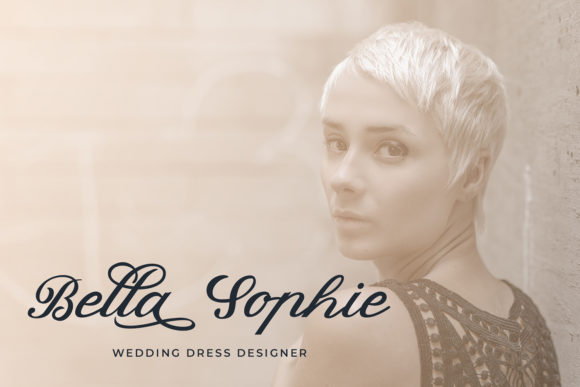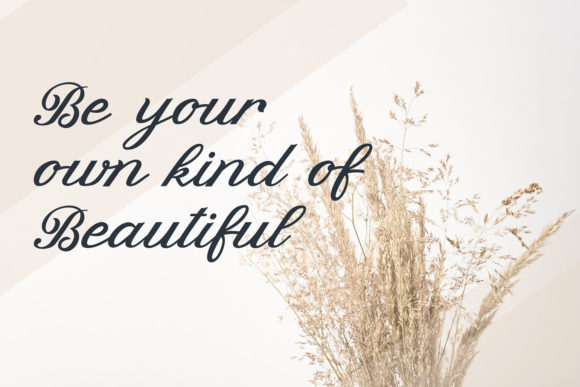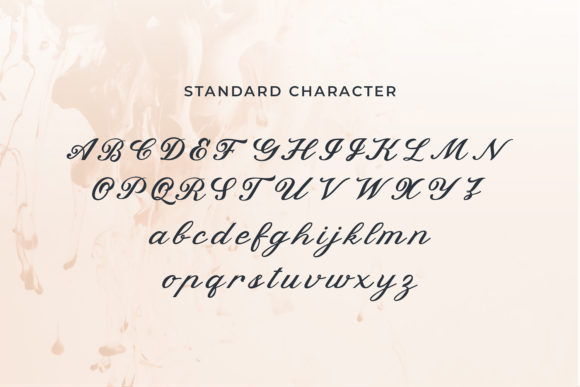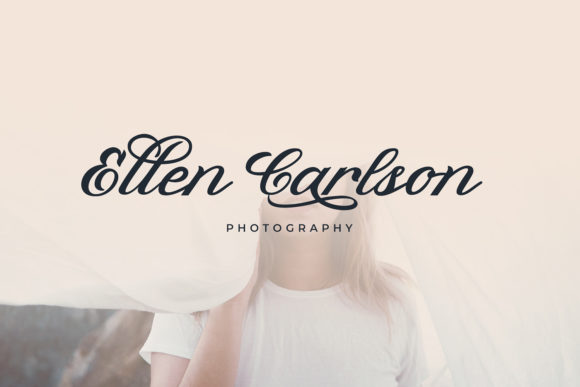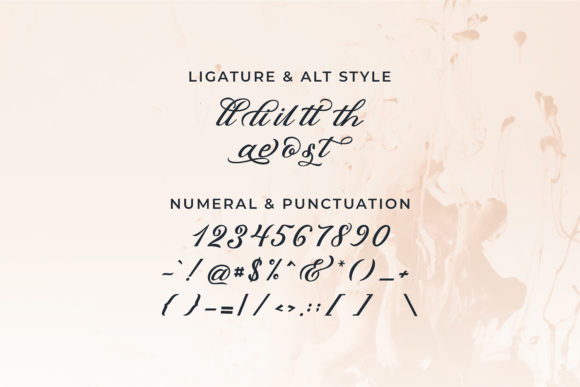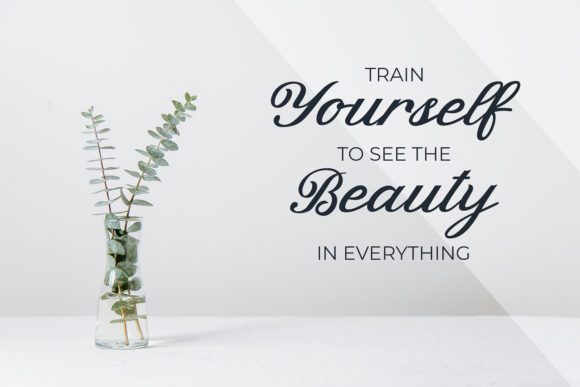
The Fattoll Font: A Vintage Script to Sweep You Off Your Feet
I still remember the design project that led me to discover the Fattoll font. I was working on a romantic getaway brochure, and my client wanted a font that would transport their audience to a bygone era. I scoured the internet, tried out countless fonts, but nothing seemed quite right. That was until I stumbled upon Fattoll – a strong lettered script font with a vintage flair that instantly captured the essence of what I was looking for.
What I Love About Fattoll ✨
- ✅ Romantic and elegant: Fattoll adds a touch of sophistication and whimsy to any project, making it perfect for wedding invitations, greeting cards, and more.
- ✅ Versatile: This font is incredibly versatile and can be used for a wide range of applications, from headlines to body text.
- ✅ Easy to read: Despite its ornate nature, Fattoll is surprisingly legible, even at smaller font sizes.
- ✅ Unique character set: Fattoll boasts a wide range of glyphs and stylistic alternates, allowing you to add personality to your text.
- ⚠️ Some letters may require manual kerning: As with any script font, you may need to adjust the kerning between certain letters to achieve optimal results.
- ⚠️ Not ideal for body text: While Fattoll is legible, its ornate nature makes it better suited for headings and titles rather than lengthy paragraphs.
The Designer Inspiration Behind Fattoll
While the true story behind Fattoll’s creation remains a mystery, it’s easy to imagine that the designer was inspired by the elegance and romance of a bygone era. Perhaps they spent hours pouring over vintage typography books, searching for the perfect blend of classic and modern styles. Whatever the inspiration, Fattoll is a true masterpiece that brings a touch of sophistication to any design project.
| What is Fattoll font best used for? | Fattoll is best used for projects that require a touch of elegance and romance, such as wedding invitations, greeting cards, and headlines. |
| Does Fattoll support OpenType features? | Yes, Fattoll supports OpenType features, including glyphs and stylistic alternates. |